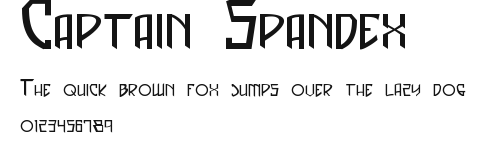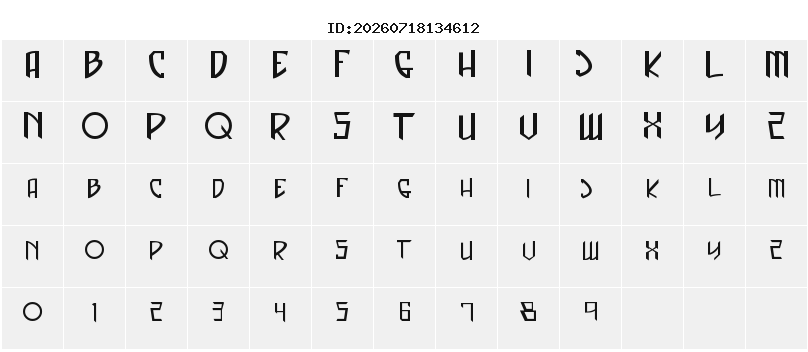
About Captain Spandex.ttf
Captain Spandex.ttf is a modern, elegant sans-serif font designed for ultimate readability and visual harmony. Perfect for branding, headlines, web design, and print materials.